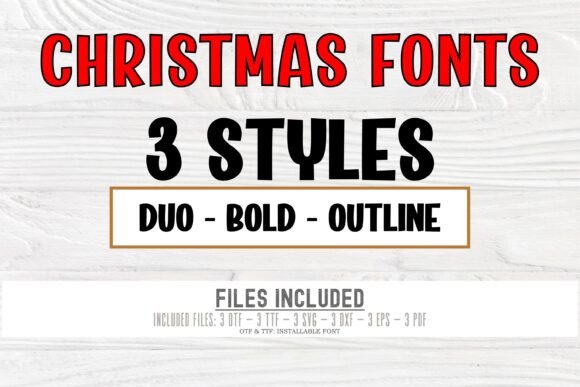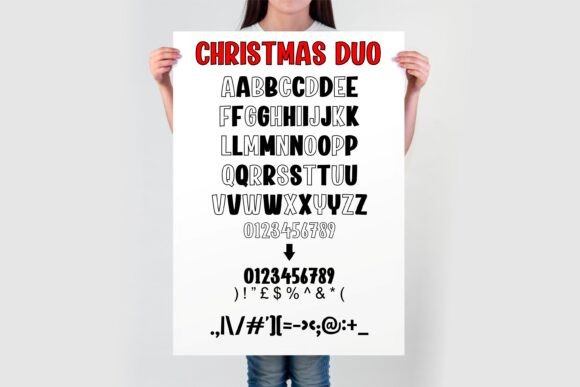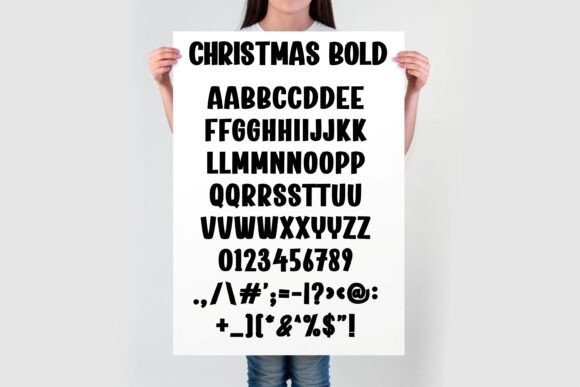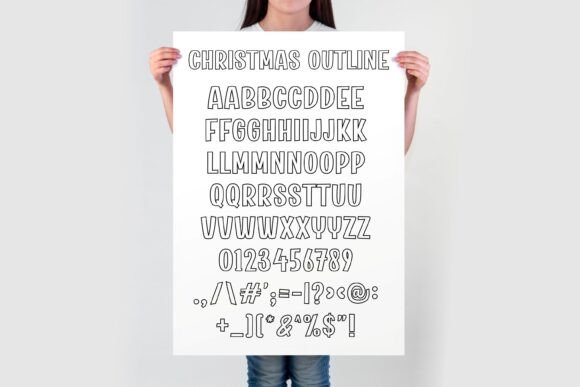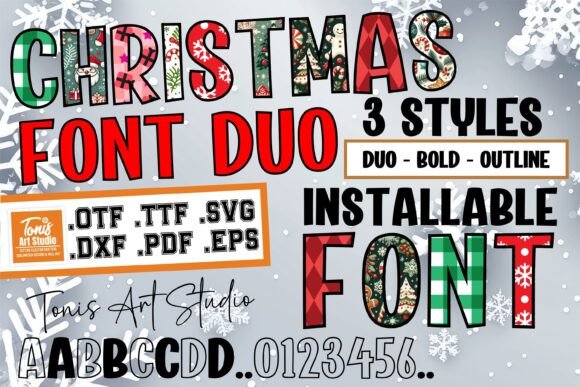
Christmas Duo Bundle Font: Elevate Your Holiday Designs with Festive Flair
It’s the most wonderful time of the year! Bring holiday cheer to your creative projects with our comprehensive Christmas Font Bundle, featuring three unique styles to make your designs shine. Whether you’re a designer, crafter, or DIY enthusiast, this bundle is perfect for creating festive designs for cards, invitations, decorations, apparel, and more.
What’s Included in the Christmas Duo Bundle Font?
Our Christmas Font Bundle includes three distinct font styles:
• Christmas Duo: A charming duo font perfect for pairing with other fonts or using on its own for a vintage, whimsical look.
• Christmas Bold: A sturdy, bold font ideal for headlines, titles, and making a statement in your designs.
• Christmas Line: An elegant outline font great for adding a touch of sophistication to your holiday creations.